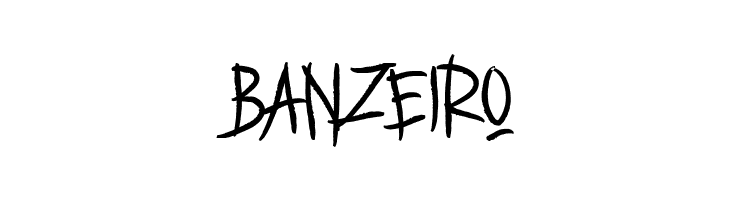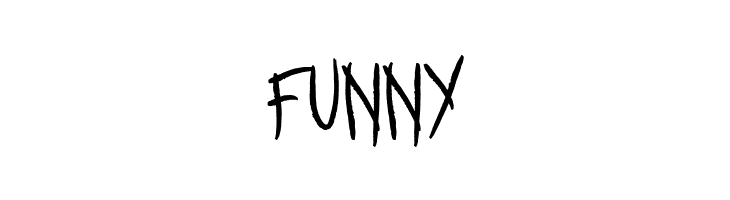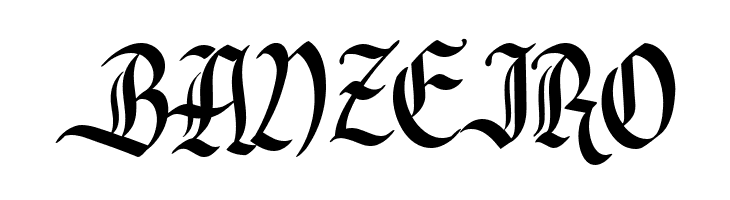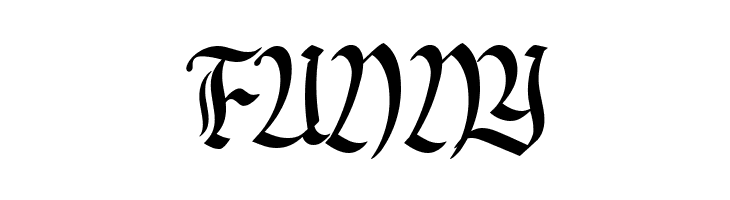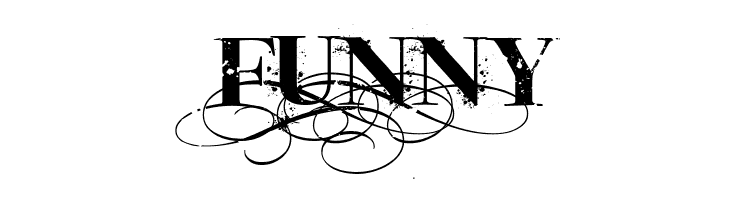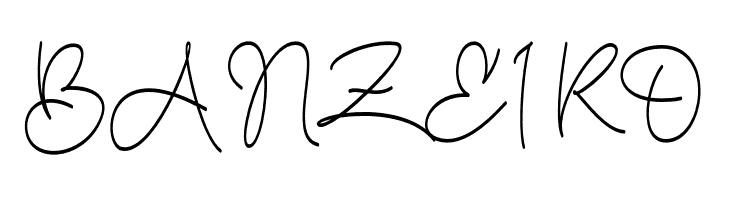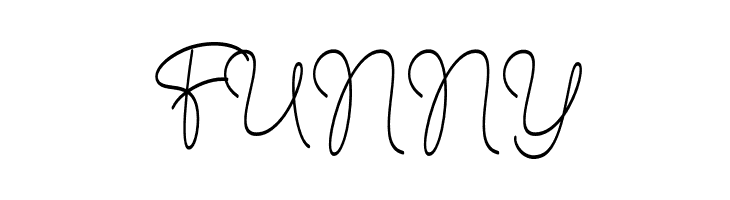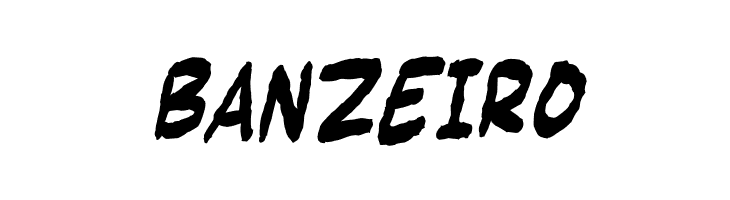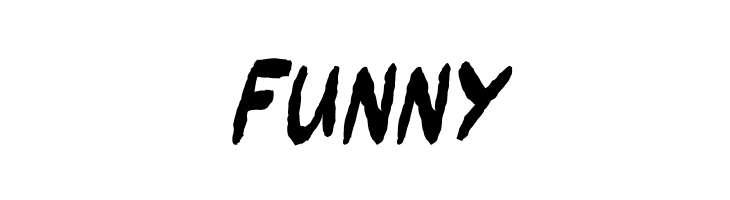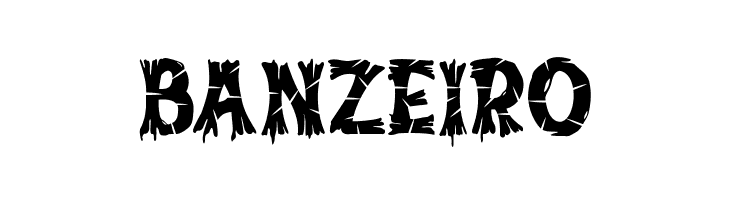
A distressed, stamp-like font with characters encased in circular rings, offering a vintage, grunge aesthetic.
A bone-inspired, eerie font with sharp, elongated strokes.
A traditional, brush-style font with bold, expressive characters.
A bold, calligraphic font with dynamic strokes and a handcrafted feel.
A bold, expressive font with an ink-splatter, brush-stroke style.
A playful, dotted font with a modern, pixel-art-inspired design.
A bold, brush-style font with dynamic, hand-painted characteristics.
A lively, handwritten font with playful, free-flowing strokes.
A bold and dramatic Blackletter font with intricate, angular letterforms.
A bold, decorative serif font with grunge and distressed effects.
A bold, expressive font with an ink-splatter, brush-stroke style.
A bold, decorative font with whimsical, brush-stroke edges.
Bold, whimsical display font with jagged, brush-stroke edges.
A bold, whimsical hand-drawn display font with sketchy, energetic strokes.
Bold, distressed display font with jagged, ink-like edges.
Energetic, hand-drawn decorative font with ink-like strokes.
Bold, whimsical display font with jagged, playful edges.
A fluid, handwritten font with elegant, connected characters.
A bold, geometric font with a unique cut-out style and high contrast.
A bold, hand-drawn font with an energetic and playful style.
An elegant script font with flowing cursive letters and intricate swashes.
A bold, brush-style font with dynamic, expressive strokes.
A decorative font with an ink splatter texture and playful design.
A classic serif typeface with sharp serifs and high contrast, exuding elegance and tradition.
A bold, high-contrast serif font with a classic and authoritative style.
A bold, classic serif font with high contrast and elegant serifs.
A classic serif font with elegant, refined serifs and balanced proportions.
A classic serif font with medium weight and balanced proportions, offering a timeless elegance.
A classic serif typeface with elegant serifs and moderate contrast.
A classic serif font with bold, well-defined characters and moderate contrast.